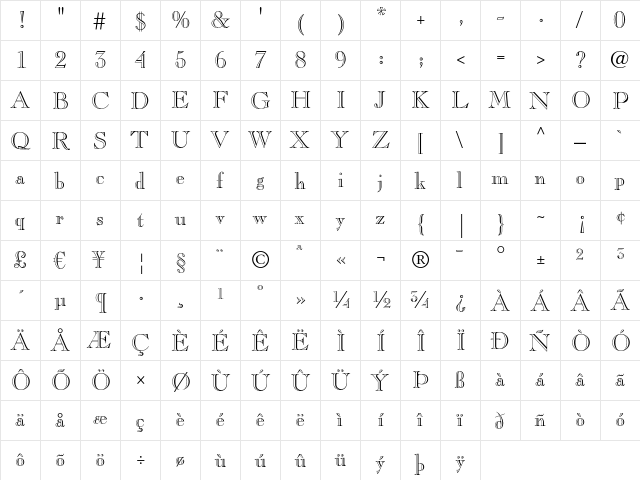
Caslon Open Face LT Regular
Design Context for Caslon Open Face LT Typeface
Caslon Open Face LT offers clean, dependable letterforms without strong stylistic allegiance, making it a practical choice for designers who need flexibility. Its slender proportions lend an understated elegance to any composition.
Pro Tip: Pair Caslon Open Face LT with a font of contrasting weight or personality to build a more expressive typographic hierarchy.